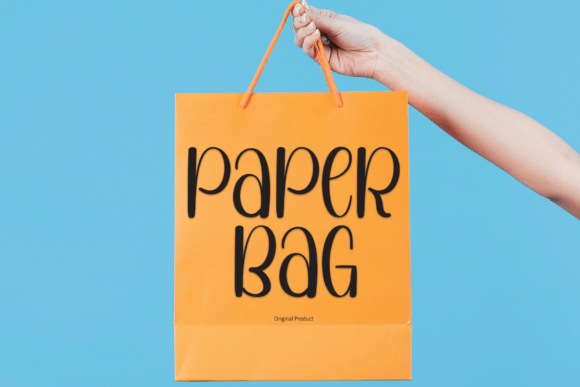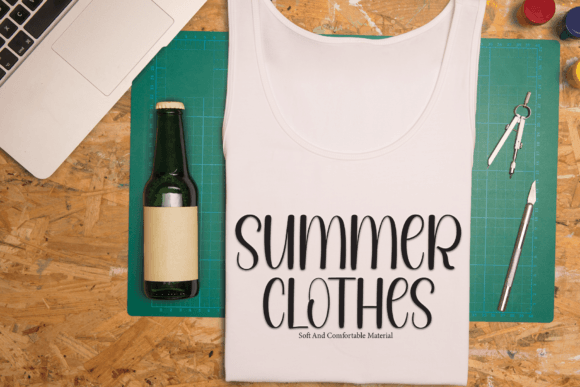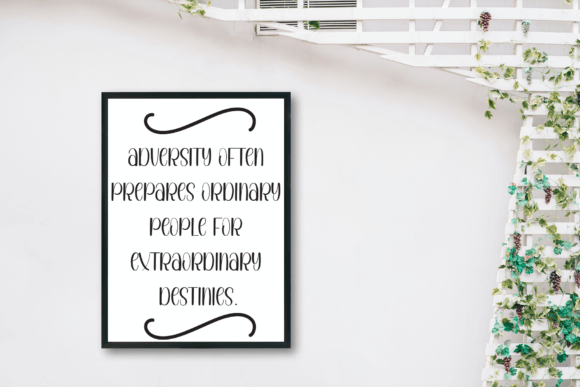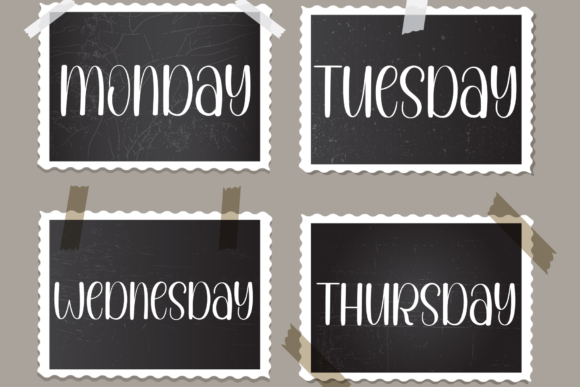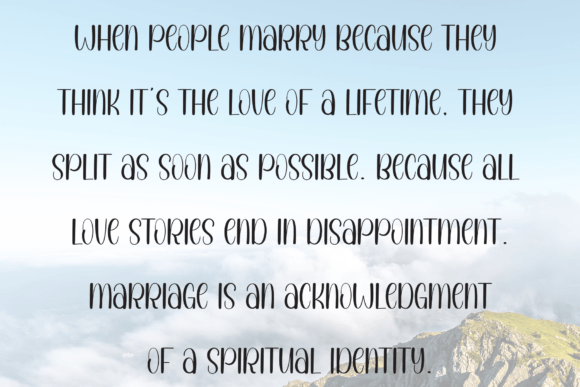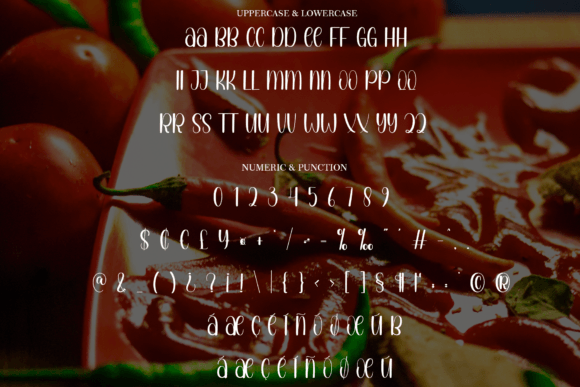
Introduction to Peppery Font
Have you ever been working on a creative project, only to be stuck on the perfect font to bring your design to life? It’s a common problem many designers face, but what if you stumbled upon a font that not only solves the issue but also adds a touch of personality to your work? That’s exactly what happens when you discover the Peppery Font.
As a valuable resource for designers, the Peppery Font offers a high-quality, sweet, and friendly handwritten style that’s perfect for adding a fun touch to your designs. Whether you’re working on a wedding invitation, a card, or any other project that requires a unique and playful feel, this font is sure to impress. Plus, with its transparent background, you can easily customize it to fit your design needs.
Key Features of Peppery Font
- Unique, high-quality design that adds a touch of sophistication to any creative project
- Perfect for use in logos, branding, and other design elements where a distinctive, creative look is desired
Honest Review: Peppery Font
As a designer, I’m always on the lookout for high quality design resources that can elevate my creative projects. Recently, I had the chance to try out the Peppery Font, and I’m excited to share my honest review with you.
Here’s what works well:
- ✨ Unique and stylish design: Peppery Font offers a fresh take on traditional typography, making it perfect for modern creative projects.
- ⚠️ Limited font sizes: The font is only available in a few sizes, which might not be ideal for projects that require more flexibility.
- ⚠️ Not suitable for complex typography: While the font is great for modern designs, it might not be the best choice for projects that require intricate typography.
Overall, I’m impressed with the Peppery Font’s unique design and versatility. While it has some limitations, it’s a great resource for designers looking for a stylish and free font to add to their creative projects.
Peppery Font
Getting the Most Out of Peppery Font
To get the most out of Peppery Font, use it in conjunction with a transparent background to create a seamless design. You can also experiment with different font sizes and styles to add visual interest to your project. With its free download and high-quality design, Peppery Font is a valuable resource for any creative project.
Peppery Font is commonly used in creative projects, such as infographics, posters, and social media graphics. It is also useful for designing presentations, reports, and other documents that require a high-quality design resource. The font’s unique characteristics make it a valuable addition to any design project.